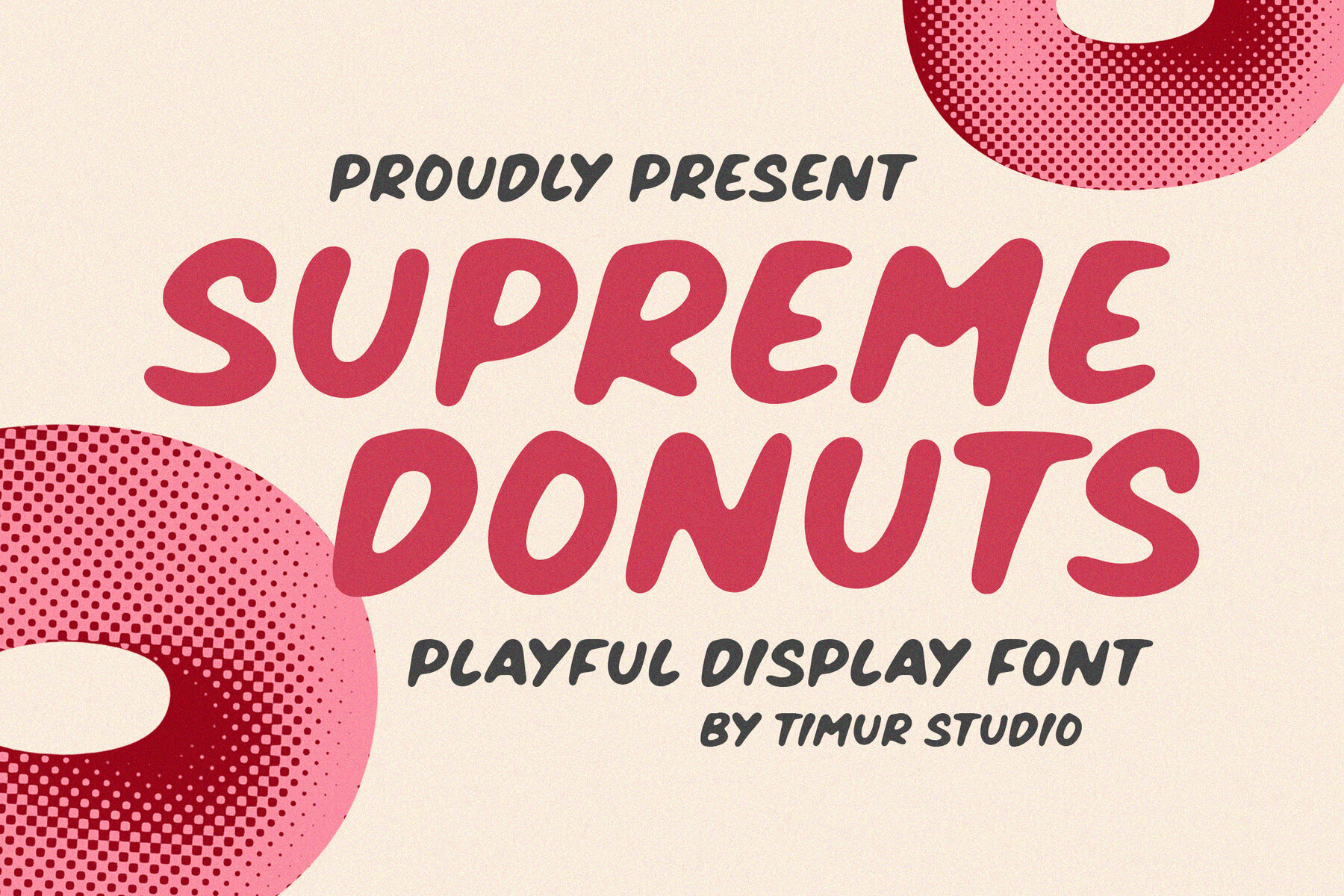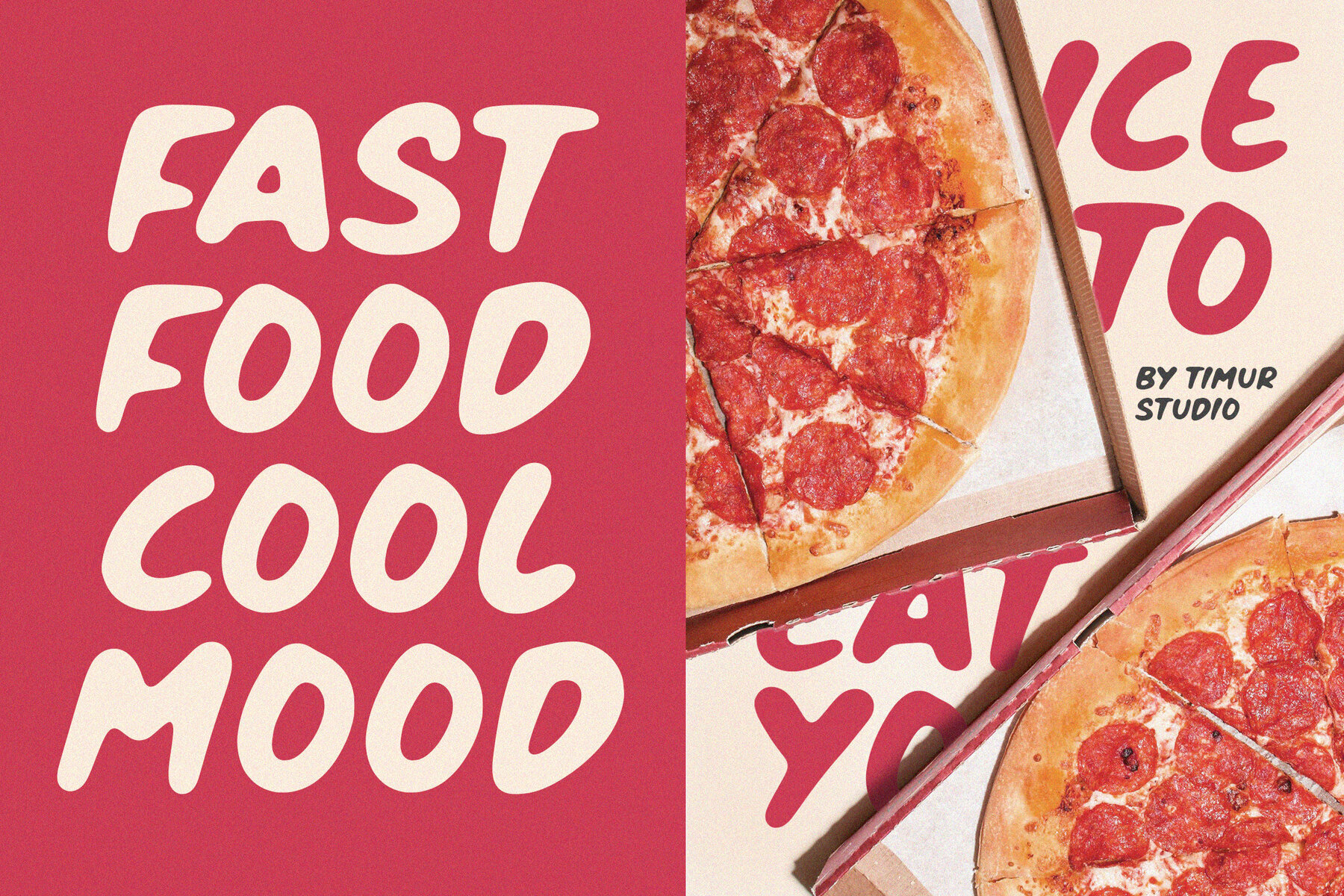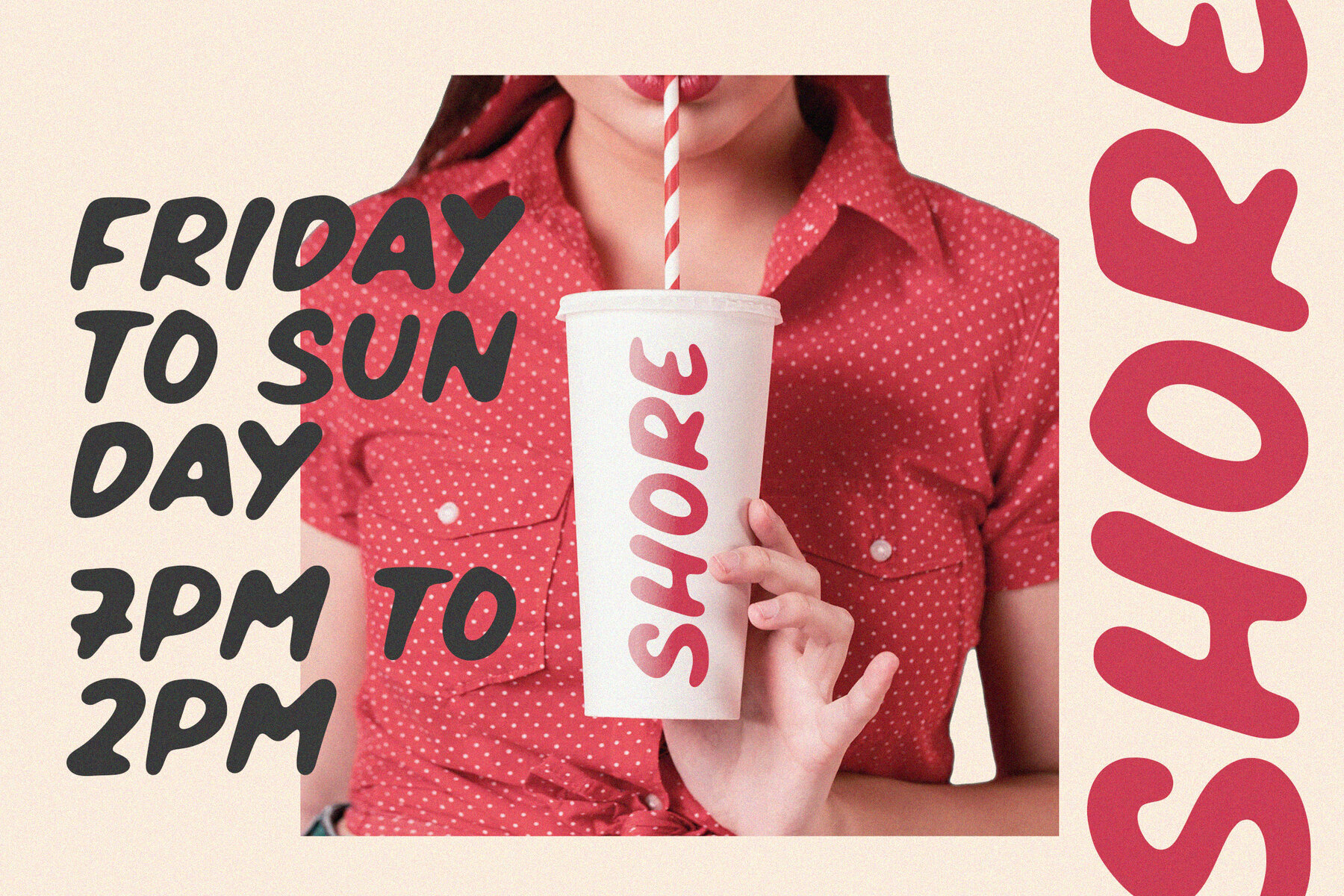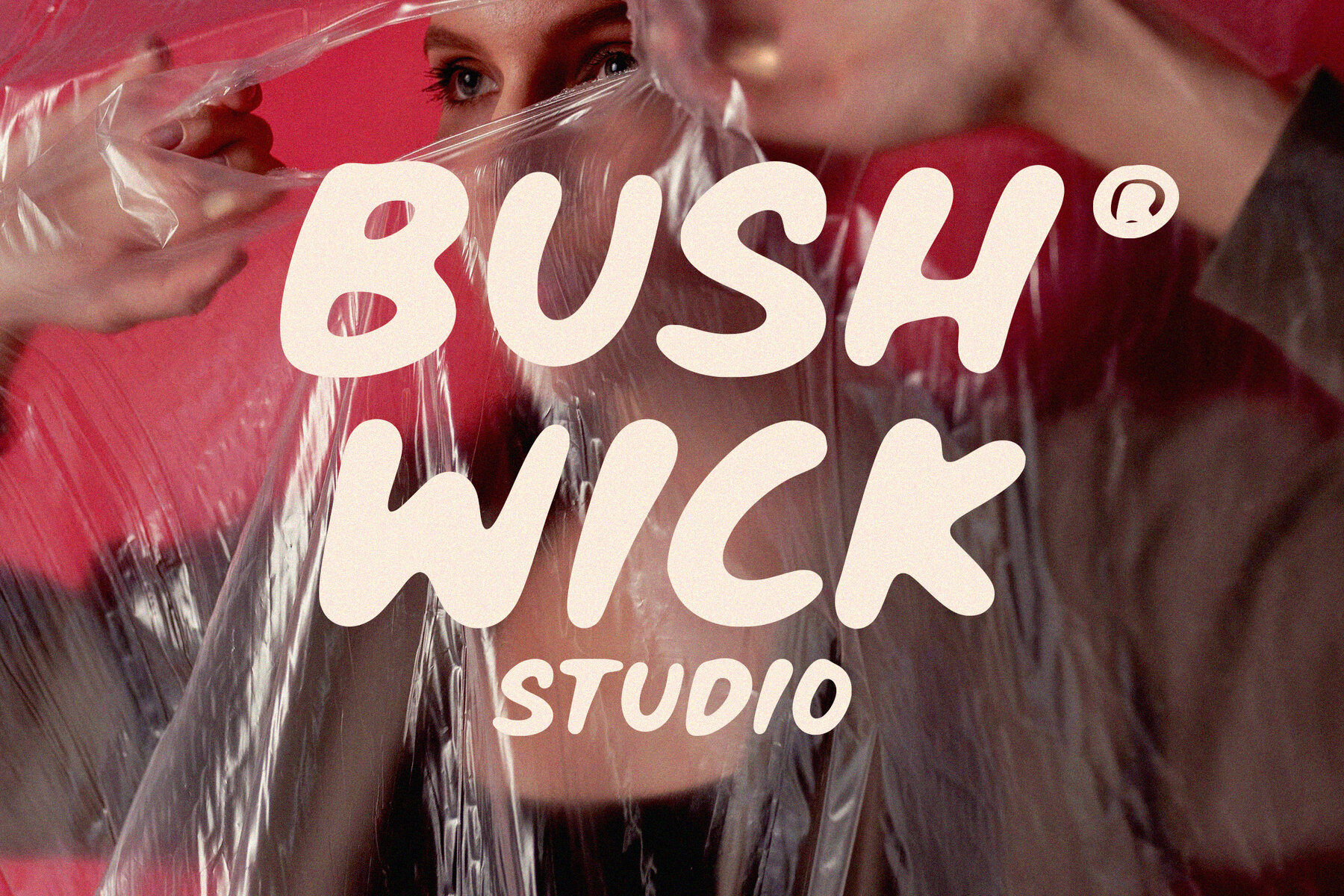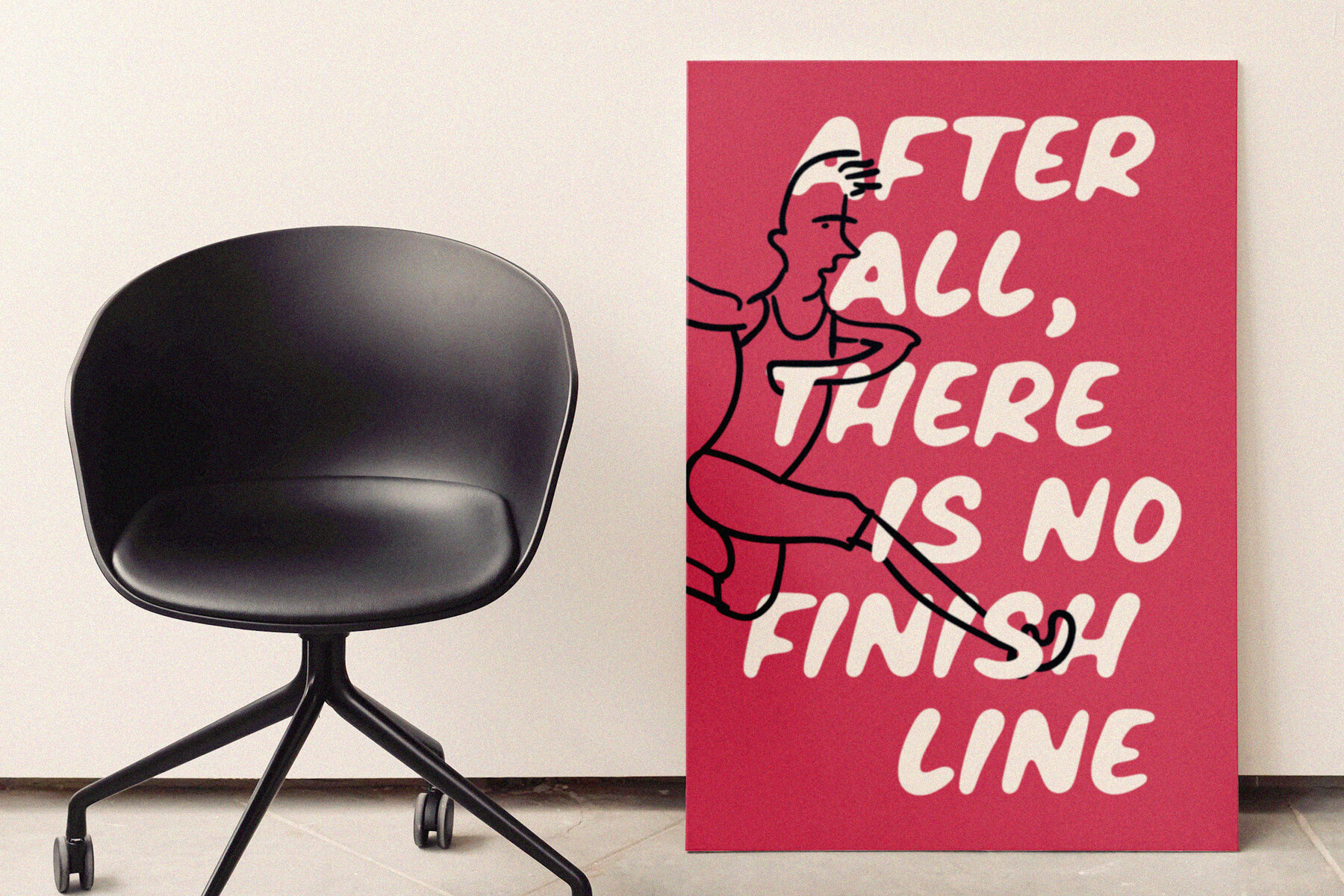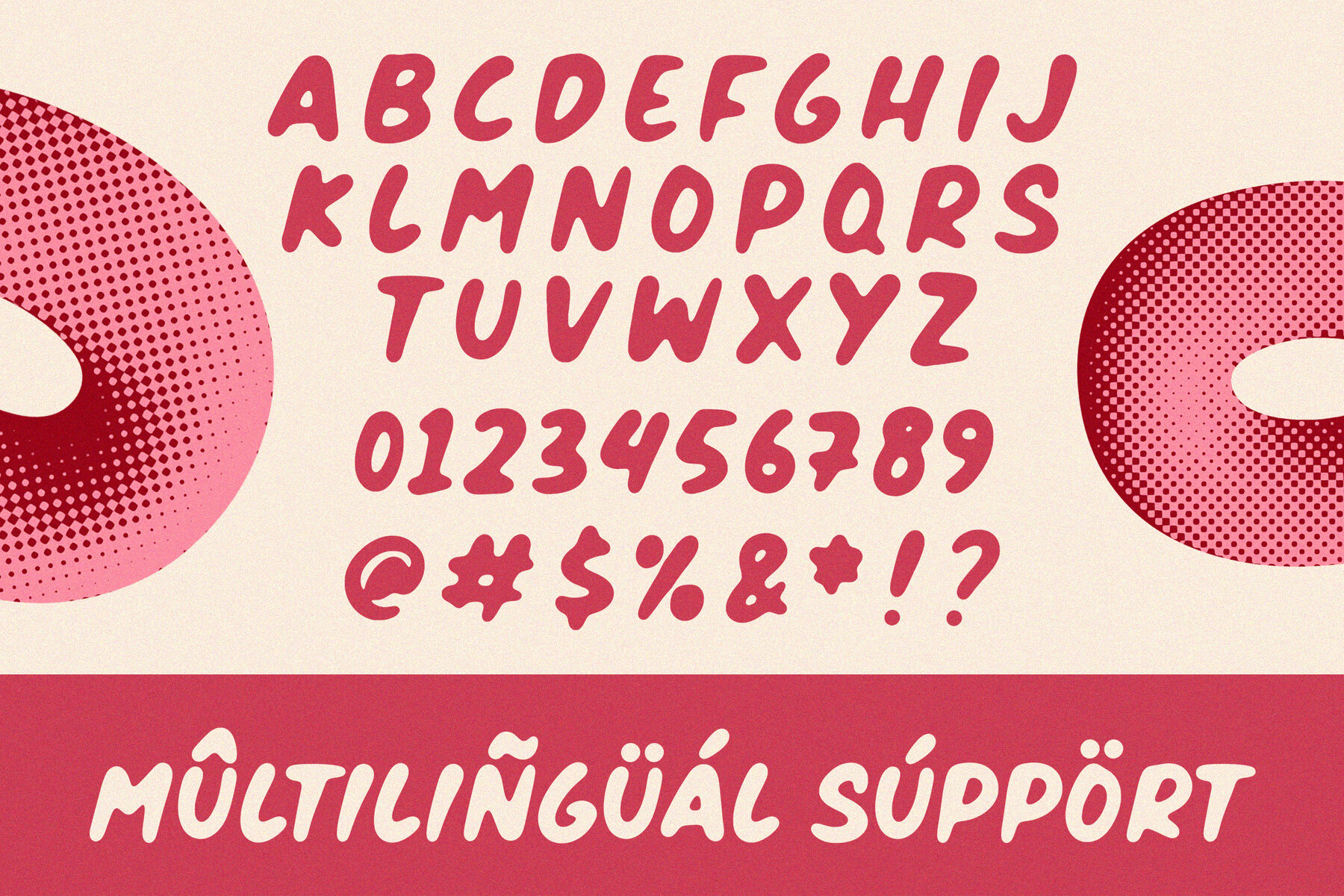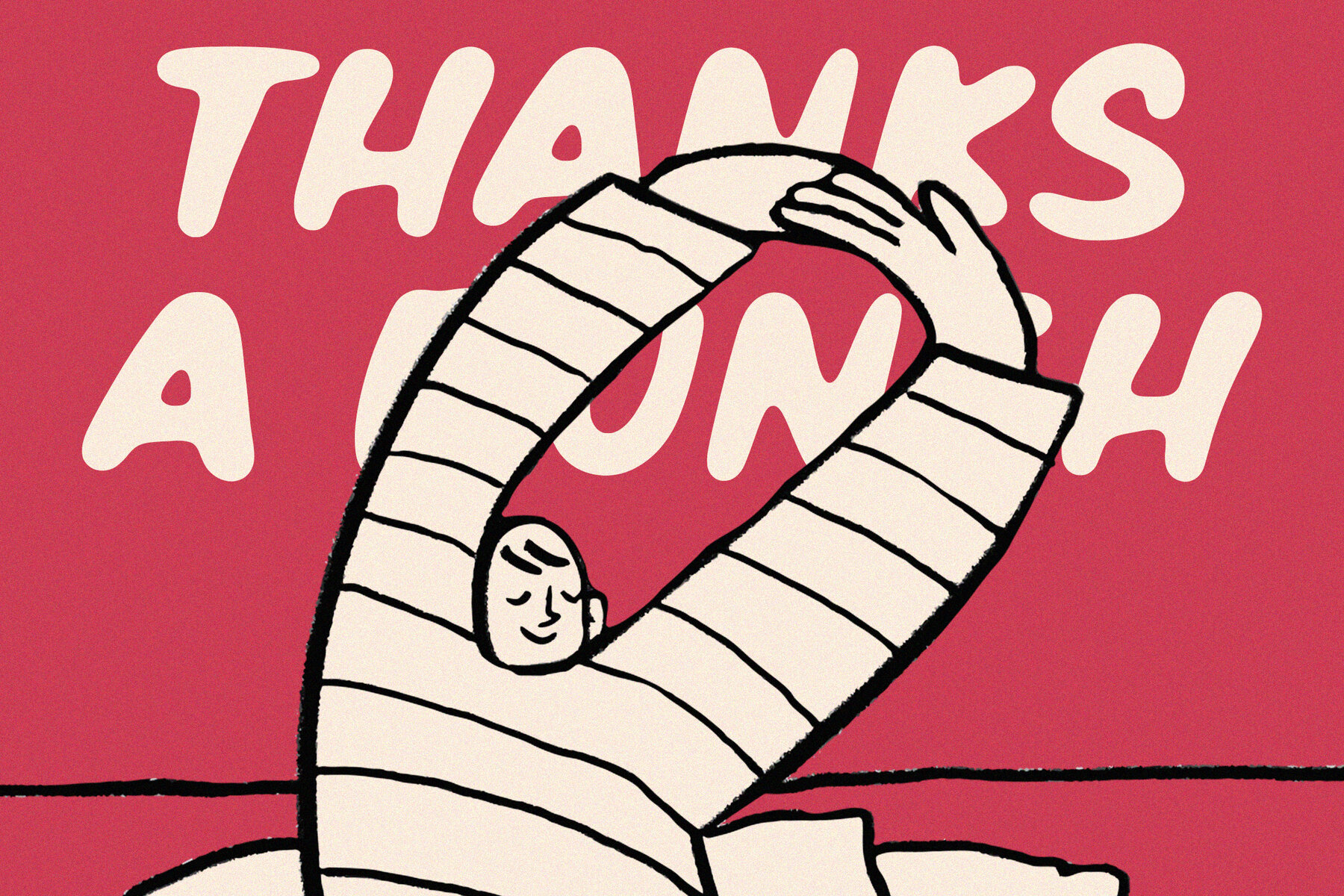
Supreme Donuts Font
Supreme Donuts
Supreme Donuts is a lively and whimsical display font characterized by its sweet, bubbly charm. With playful curves and bold, rounded forms, it exudes the delightful energy reminiscent of a fun-filled bakery. This makes it an ideal choice for branding, packaging, or any design project that seeks to infuse joy and playfulness.
Beyond its visual appeal, Supreme Donuts also offers multilingual support, making it versatile for designers working with diverse languages. Embrace its spirited design for projects that demand a friendly and engaging typography solution.